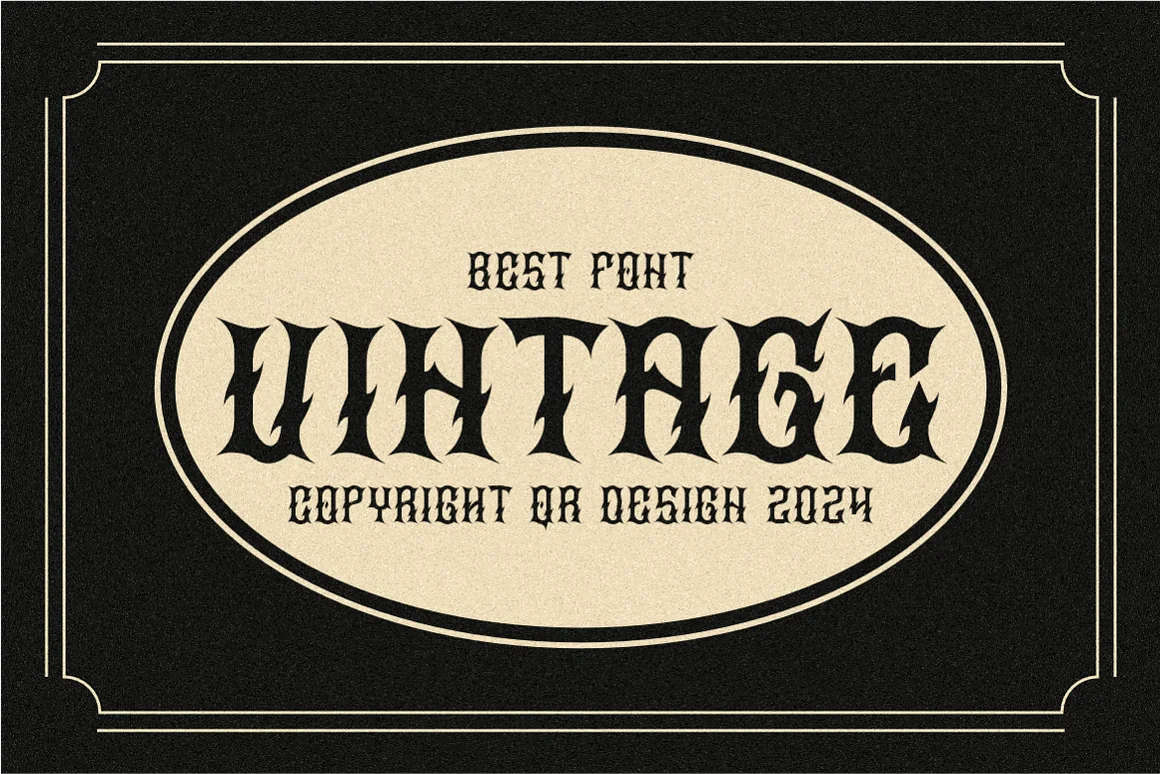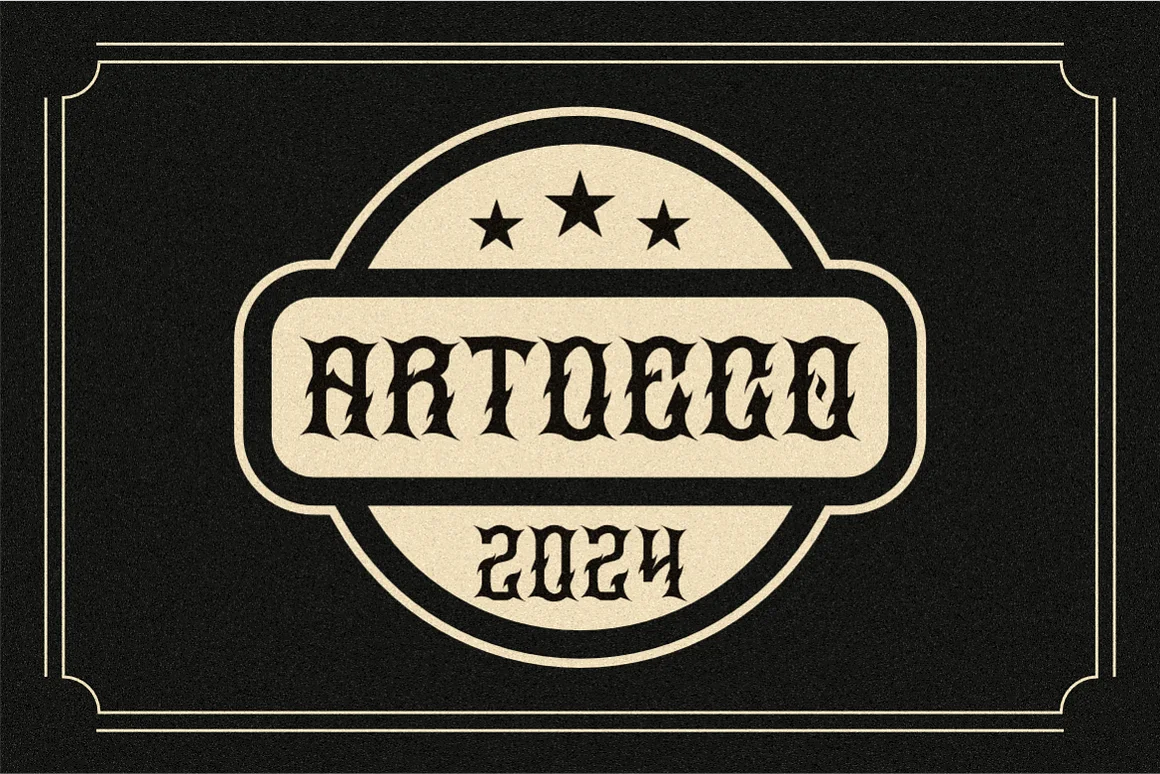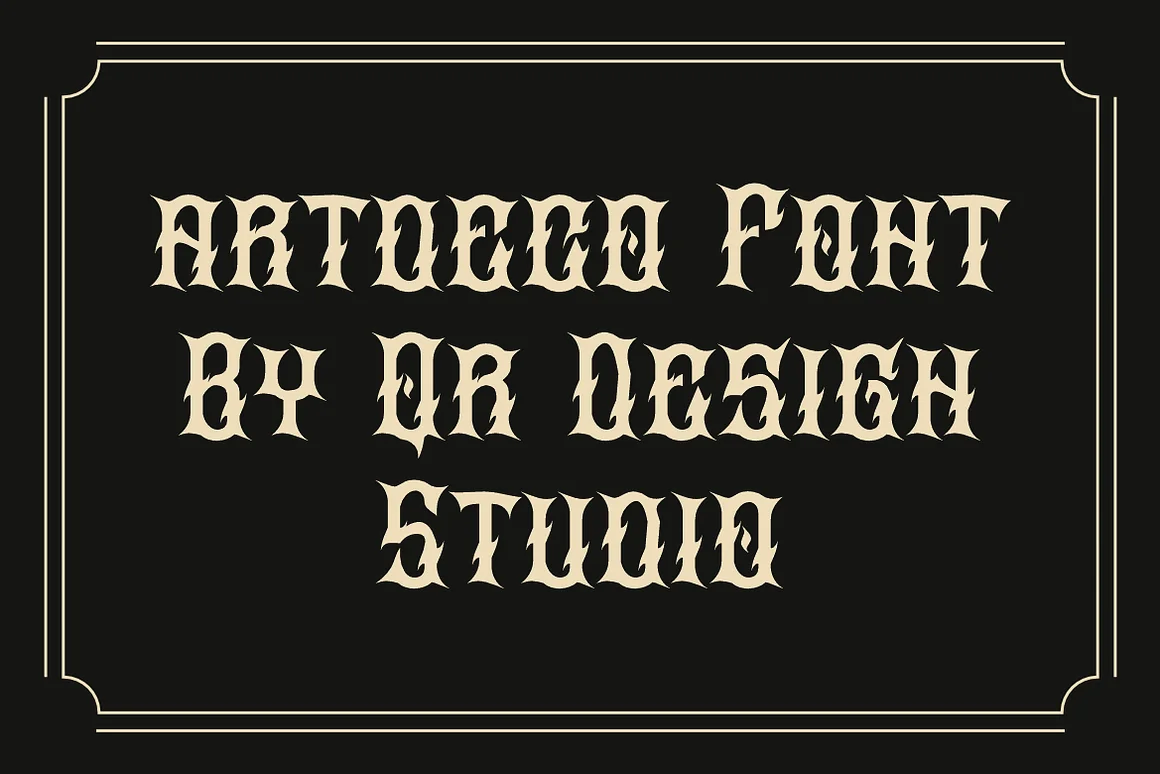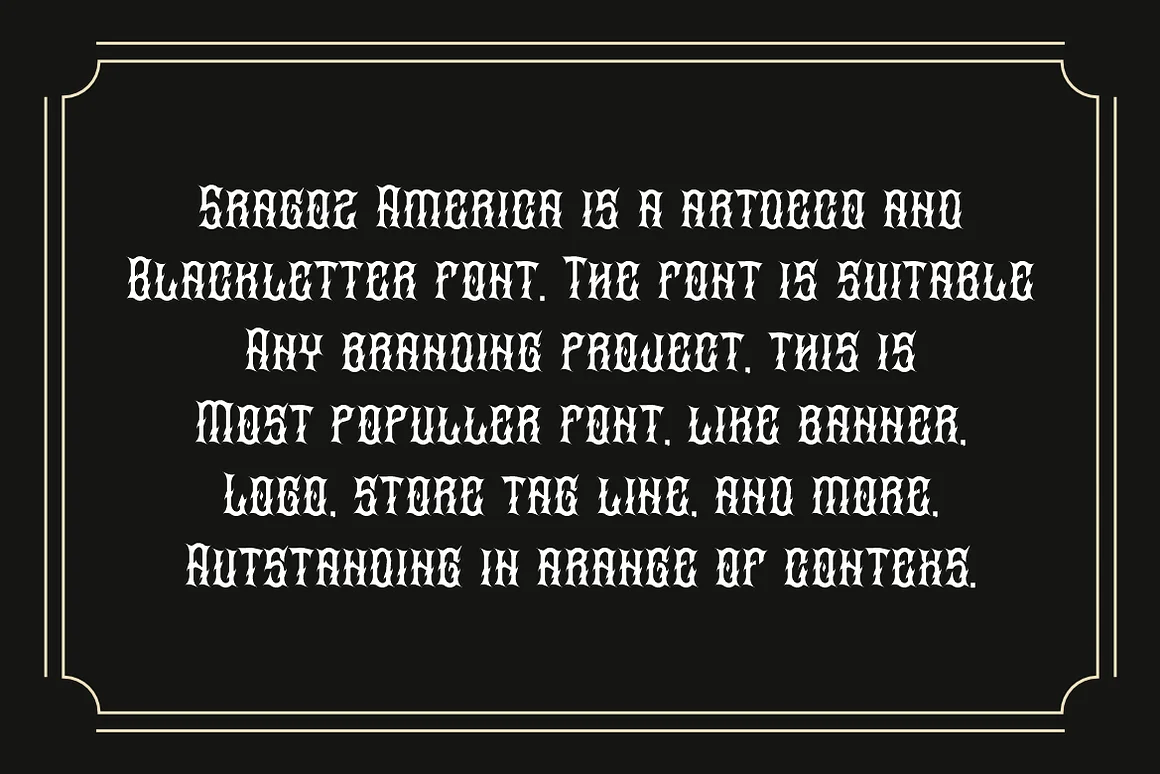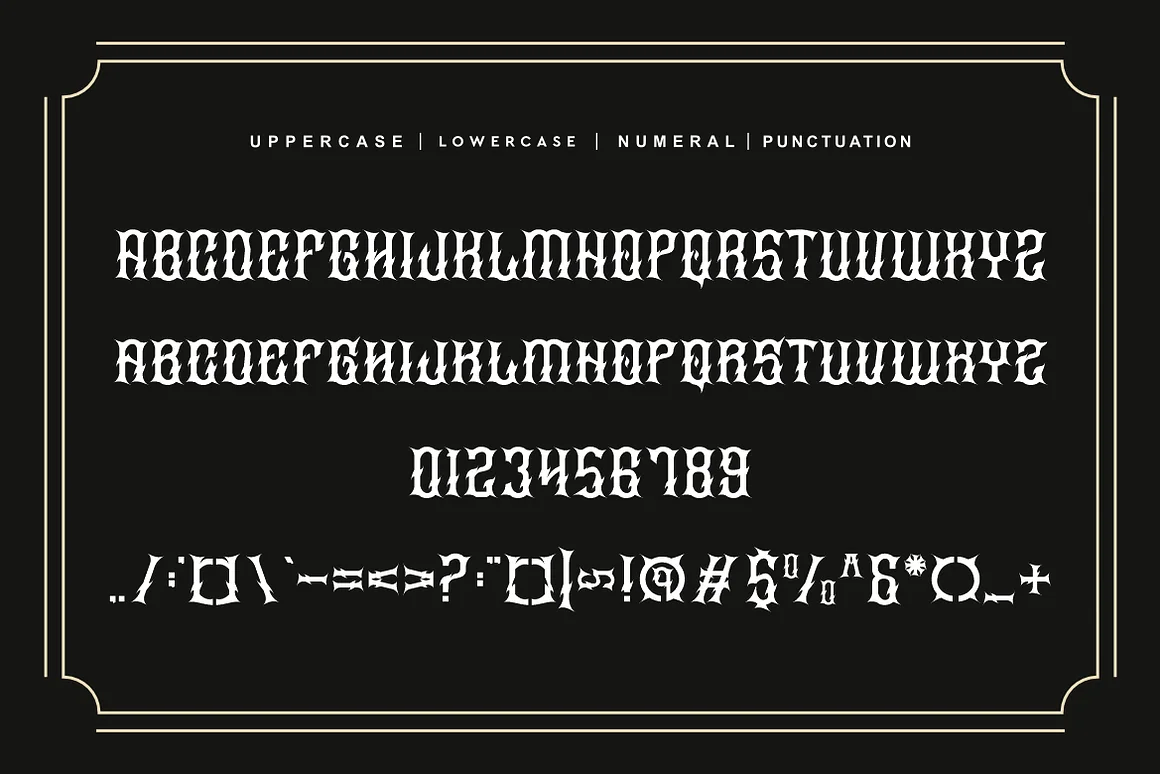
Sragoz America - Western Font
Typography shapes perception at a subconscious level. Sragoz America - Western leverages versatility across print and screen contexts to make every composition feel considered. The typeface brings a historically informed sensibility to a broad range of creative disciplines, with visual harmony and precise spacing that holds up whether the work is print-first or screen-first.
In practice, Sragoz America - Western proves particularly effective for heritage storefronts, web design, craft beer labels, nostalgic posters, retro advertising. Designers reaching for it find that the type decisions feel resolved rather than laboured — a useful quality when client timelines are tight.
Spurs, ball terminals, and slightly exaggerated serifs reference the wood-type tradition of nineteenth-century commercial printing. The letterforms have been redrawn from historical specimens rather than traced, preserving the spirit of the originals while correcting the inconsistencies introduced by worn type.
The range of applications extends to social media graphics, classic automobile brands, annual reports, denim brand identity. That breadth is deliberate: the proportions and spacing were stress-tested across a wide range of mock briefs before the typeface was finalised.
Graphic designers working on identity systems find Sragoz America - Western a reliable choice for projects that demand both personality and restraint. The design avoids the self-conscious quirkiness that dates quickly, settling instead for considered distinctiveness that holds up over time.